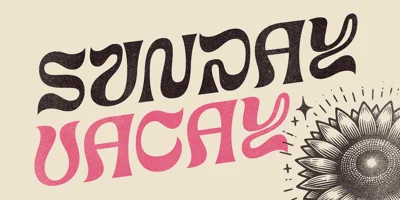
Sunday Vacay Font
Sunday Vacay Font is ideal for tropical resort branding, beach vacation marketing, leisure travel promotions, summer lifestyle campaigns, relaxation spa signage, casual dining restaurants, poolside bar menus, vacation rental advertising, weekend getaway packages, and laid-back hospitality communications.
What makes Sunday Vacay Font exciting is its effortless relaxation vibe that perfectly captures the carefree spirit and blissful tranquility of perfect weekend escapes and tropical vacation experiences. This typeface features casual letterforms with breezy proportions and vacation-inspired details that instantly evoke the feeling of warm sand, gentle ocean breezes, and the stress-free joy of holiday relaxation. The font's laid-back personality and vacation authenticity make it ideal for hospitality brands seeking to convey escape, rejuvenation, and the peaceful bliss that comes from taking time to truly unwind and enjoy life's simple pleasures.
Sunday Vacay Font family includes relaxed weight variations and casual alternatives that enhance its vacation appeal while providing design flexibility for leisure and hospitality applications. The font features breezy ligatures, tropical ornaments, and laid-back character variations that create authentic vacation atmosphere for travel and leisure branding.
Travel agencies and hospitality brands consistently choose Sunday Vacay Font for projects requiring authentic vacation appeal and relaxation credibility. The font's carefree character excels in applications targeting stressed professionals, vacation seekers, and leisure travelers who crave genuine escape and peaceful rejuvenation. Whether you're designing for beach resorts, spa retreats, or casual vacation experiences, this relaxing typeface delivers the vacation authenticity and stress-free tranquility that resonates with audiences seeking genuine escape from daily pressures and the restorative power of perfect leisure moments.